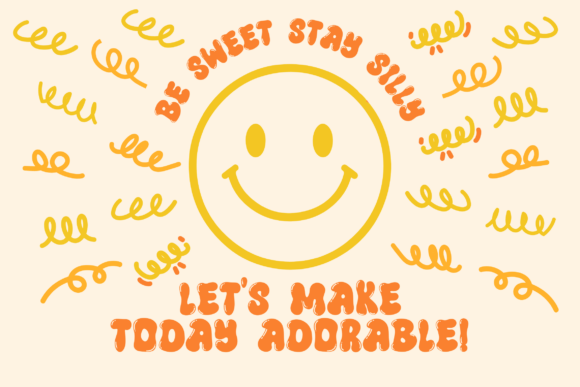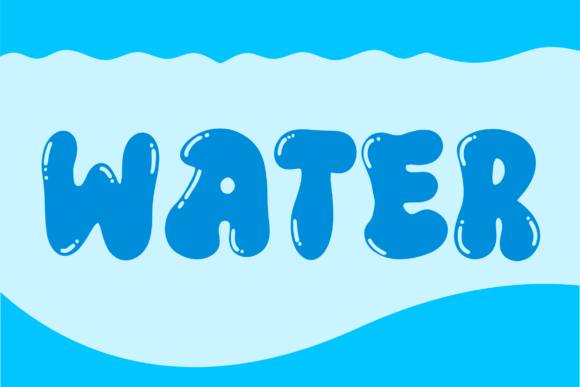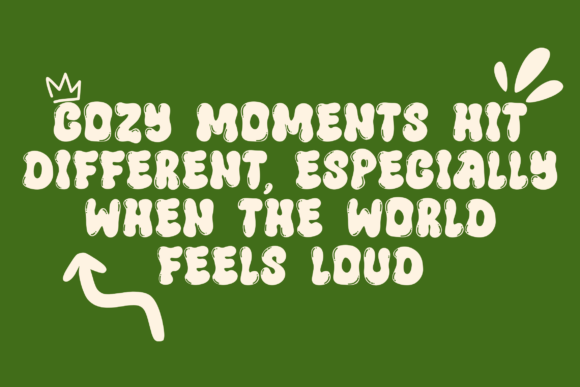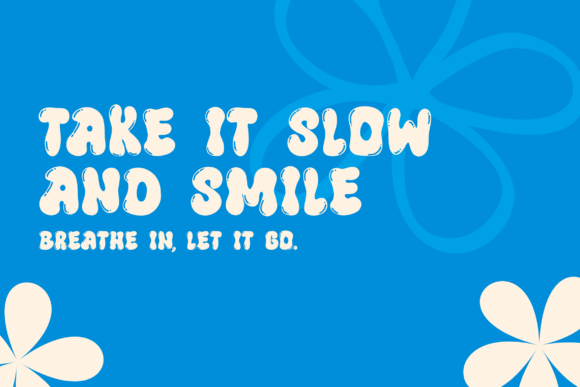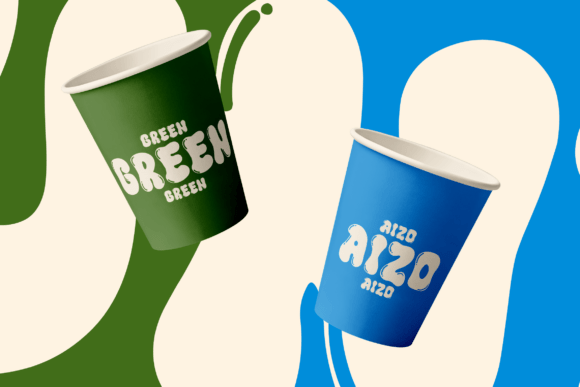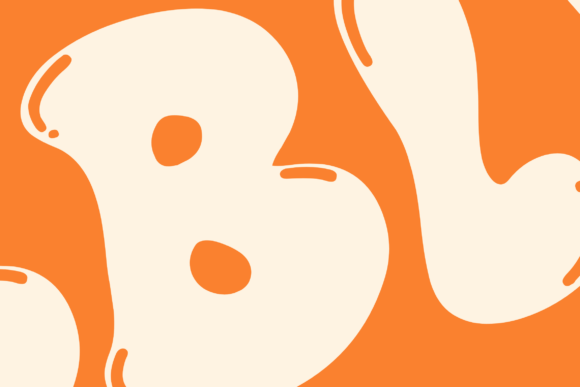
Meet Blunt Bubble, the Playful Chunky Display Font
Are you tired of using the same old fonts in your designs? Look no further than Blunt Bubble, a bold, rounded display font that’s sure to make your designs feel fun, loud, and impossible to ignore. With its thick and soft letterforms, blunt edges, and confident, cartoon-like personality, Blunt Bubble is the perfect addition to any design project that needs warmth, humor, and strong visual impact.
The Characteristics of Blunt Bubble
Blunt Bubble is a unique font that’s characterized by its bold, rounded letterforms. Each character feels inflated and friendly, like bold lettering shaped from smooth bubble foam. The font’s blunt edges give it a confident, cartoon-like personality that’s sure to grab attention. The letterforms are thick and soft, making them perfect for designs that need a playful touch.
Blunt Bubble is a versatile font that can be used for a variety of projects. It’s perfect for kids branding, snack packaging, sticker designs, YouTube thumbnails, social media graphics, birthday invitations, and playful merchandise. The font’s cheerful and expressive personality makes it ideal for designs that need to stand out and make a statement.
Why Blunt Bubble Sells
So, what makes Blunt Bubble so special? For starters, the font installs quickly and works smoothly in a variety of design apps, including Canva, Photoshop, Illustrator, and more. This makes it easy to incorporate into your design workflow. Additionally, the thick rounded structure of the font keeps text readable even at large sizes or bold color treatments. This means you can use Blunt Bubble to create eye-catching designs that are easy to read and understand.
Streamlining Your Design Process
Another benefit of using Blunt Bubble is that it can help streamline your design process. The bubble style of the font already carries personality, which means you can build layouts faster and with more ease. You won’t need to spend as much time trying to add visual interest to your designs, as the font itself will do the heavy lifting. This makes it perfect for designers who need to work quickly and efficiently.
Tips for Using Blunt Bubble
So, how can you get the most out of Blunt Bubble? Here are a few tips:
- Use Blunt Bubble for headlines and titles to add a playful touch to your designs.
- Pair Blunt Bubble with other fonts to create a unique and visually appealing typography combination.
- Don’t be afraid to get creative and try out new and unusual design ideas.
In conclusion, Blunt Bubble is a playful chunky display font that’s perfect for designers and crafters who need to add a fun and lively touch to their designs. With its bold, rounded letterforms, blunt edges, and confident personality, Blunt Bubble is sure to make your designs stand out and grab attention. Whether you’re working on a kids branding project, snack packaging, or social media graphics, Blunt Bubble is a versatile font that can help you achieve your design goals.
Get Ready to Make a Statement with Blunt Bubble